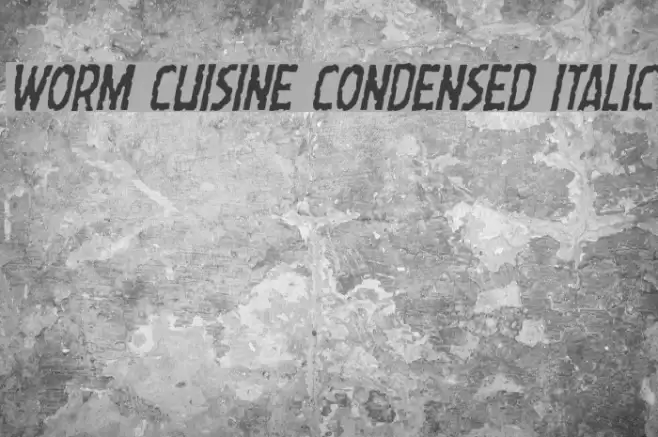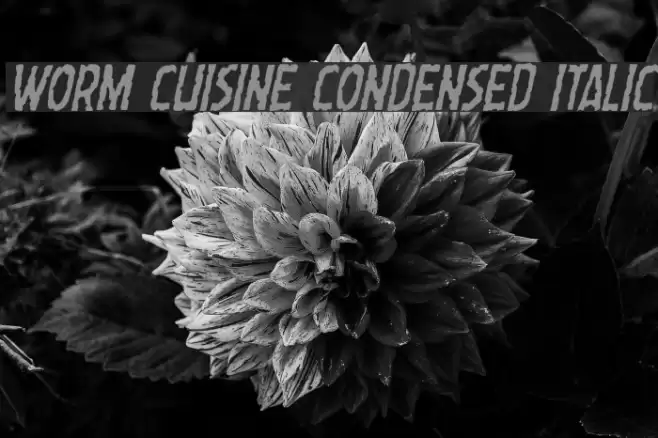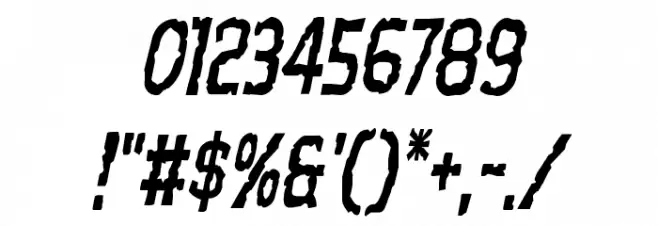
Worm Cuisine Condensed Italic Font
Worm Cuisine Condensed Italic Description
This font features a dynamic and energetic style with a condensed and italicized form. The characters exhibit a playful, slightly chaotic appearance, reminiscent of hand-drawn or brush-stroke designs. The strokes are uneven, adding a sense of movement and spontaneity. This font is bold and eye-catching, making it suitable for projects that require a strong visual impact. The condensed nature allows for efficient use of space, while the italic slant adds a sense of forward motion. The overall design is unique and memorable, perfect for creative and unconventional applications.
A bold, condensed, and italic font with a dynamic, hand-drawn style from Uncategorized fonts.
- Proposed Projects: Ideal for posters, album covers, branding for creative industries, and any project needing a bold, artistic touch.
- Character Spacing: Tight